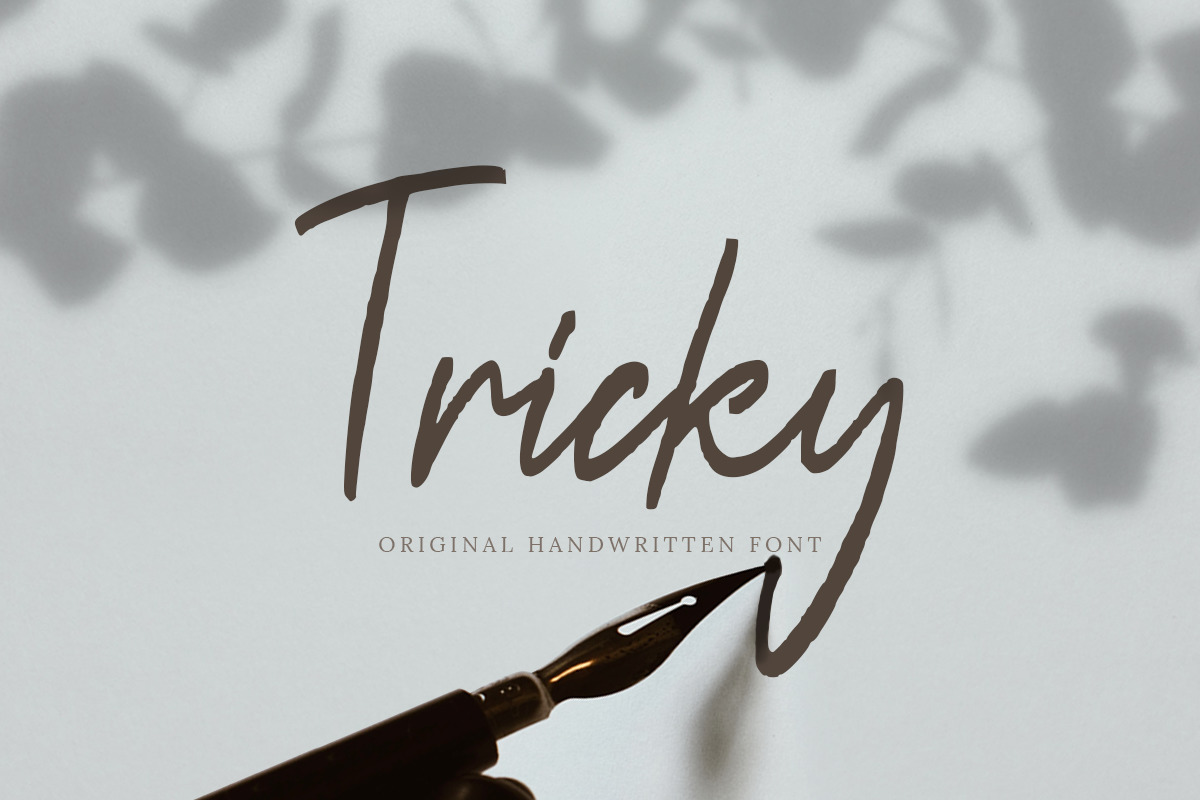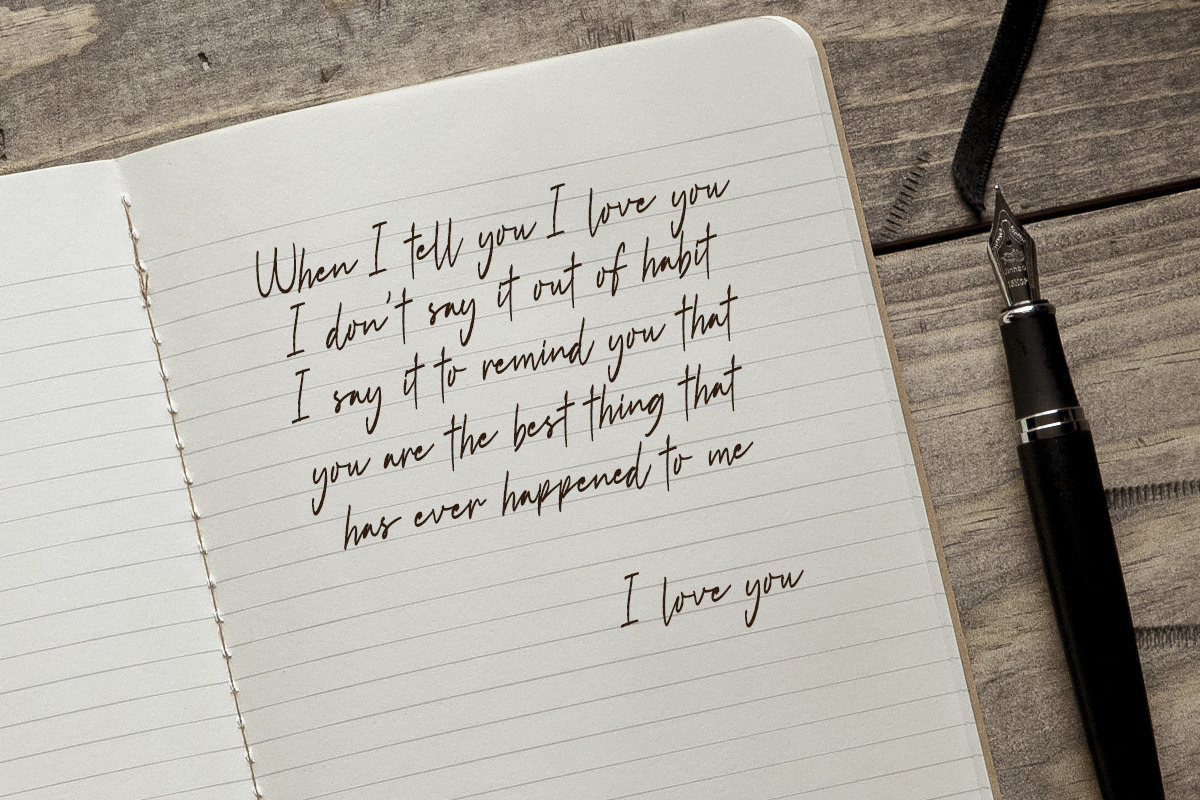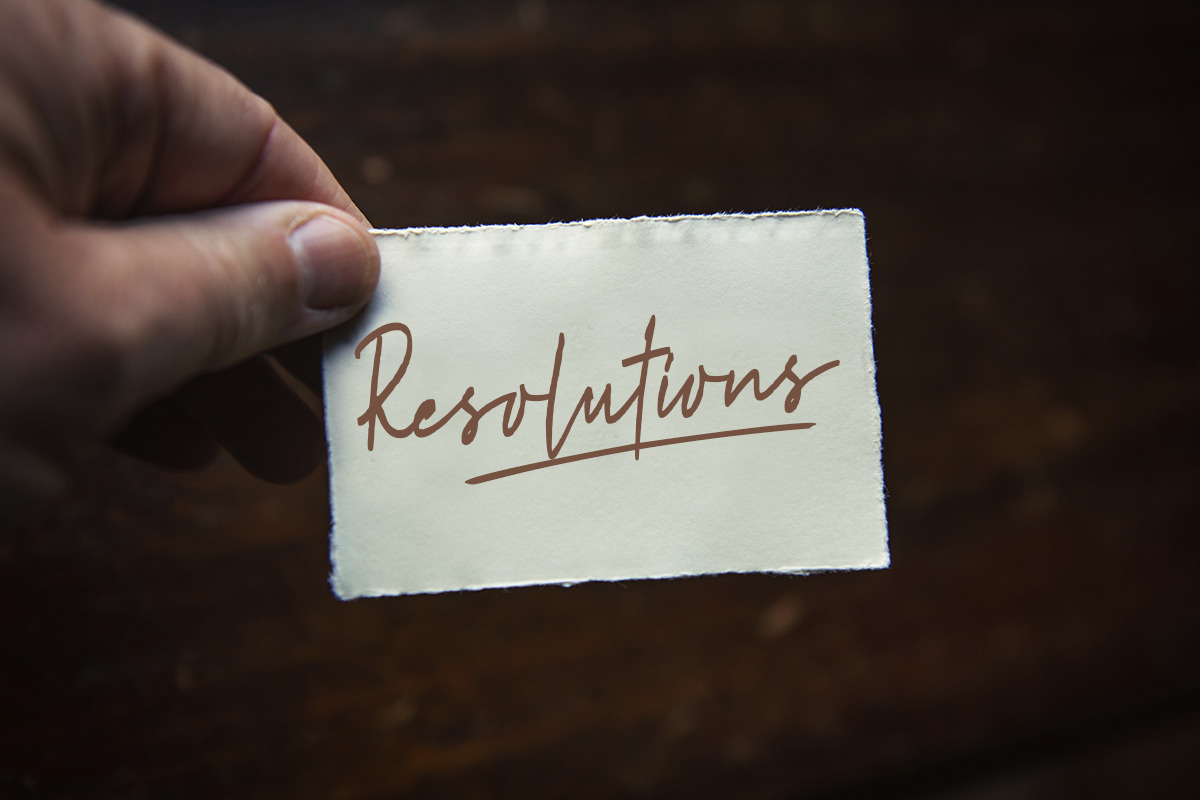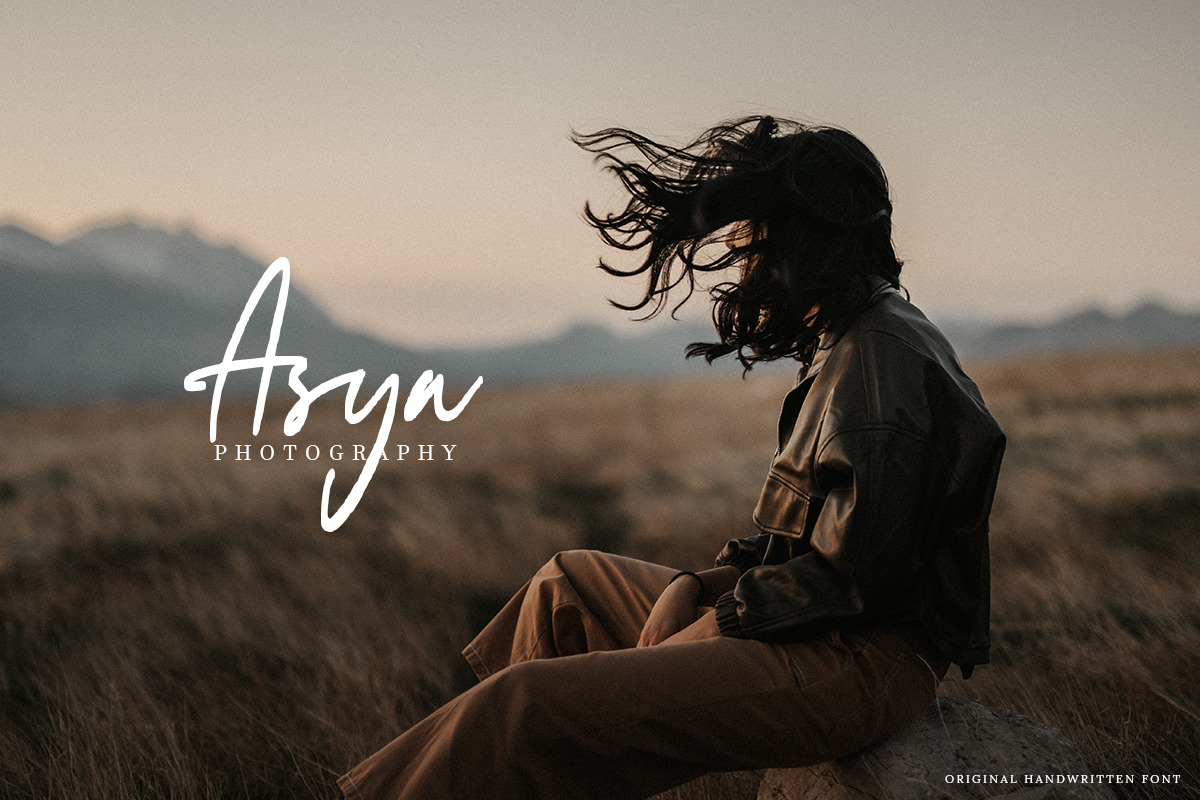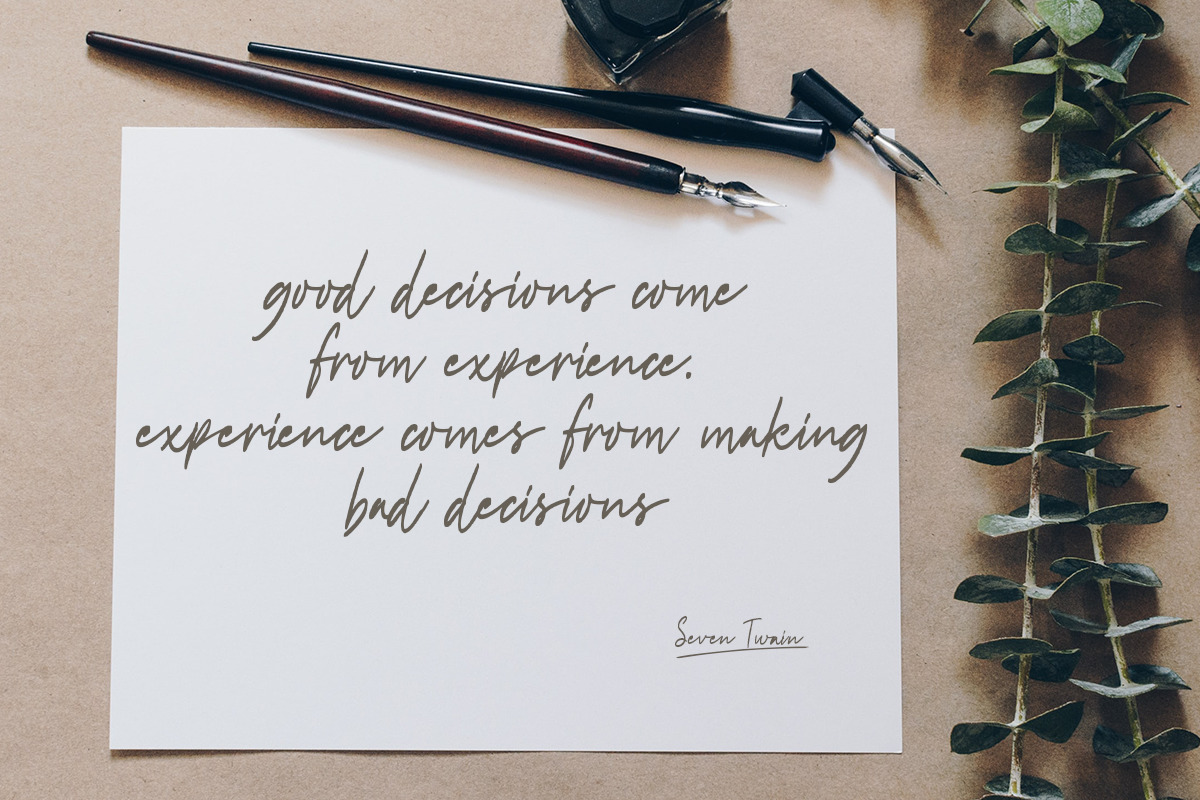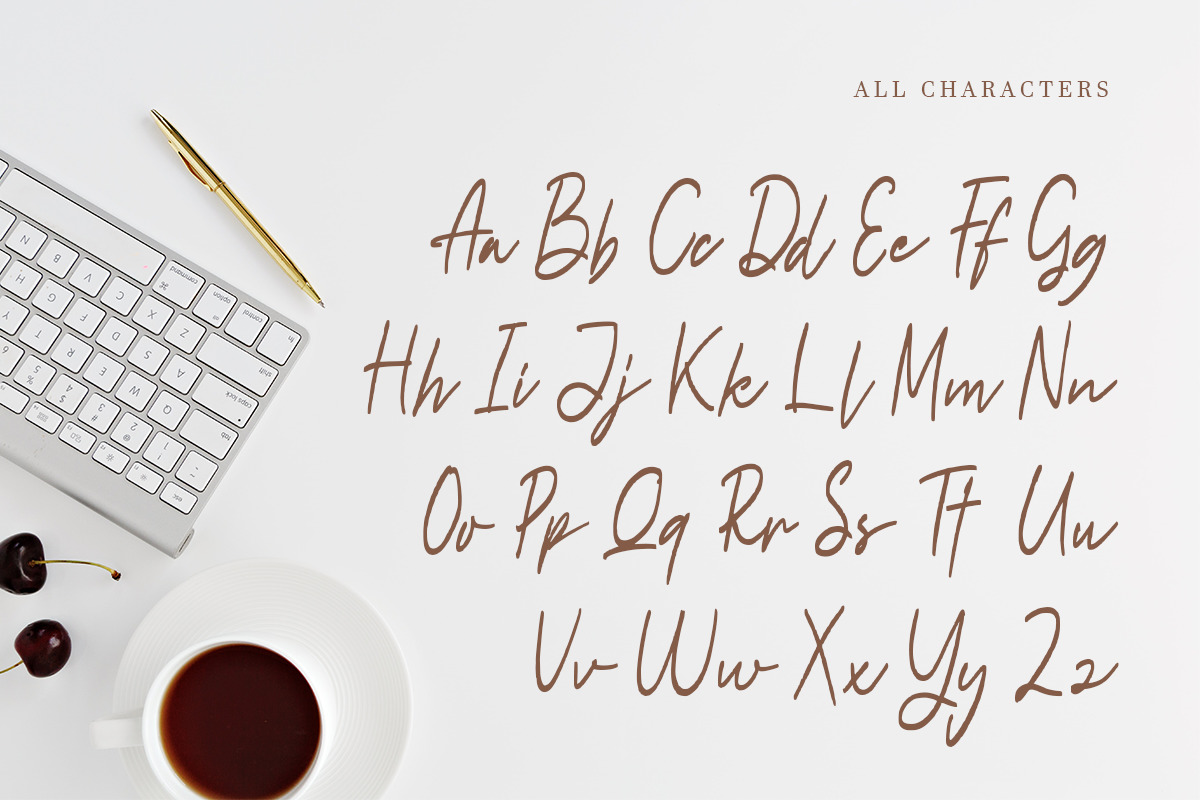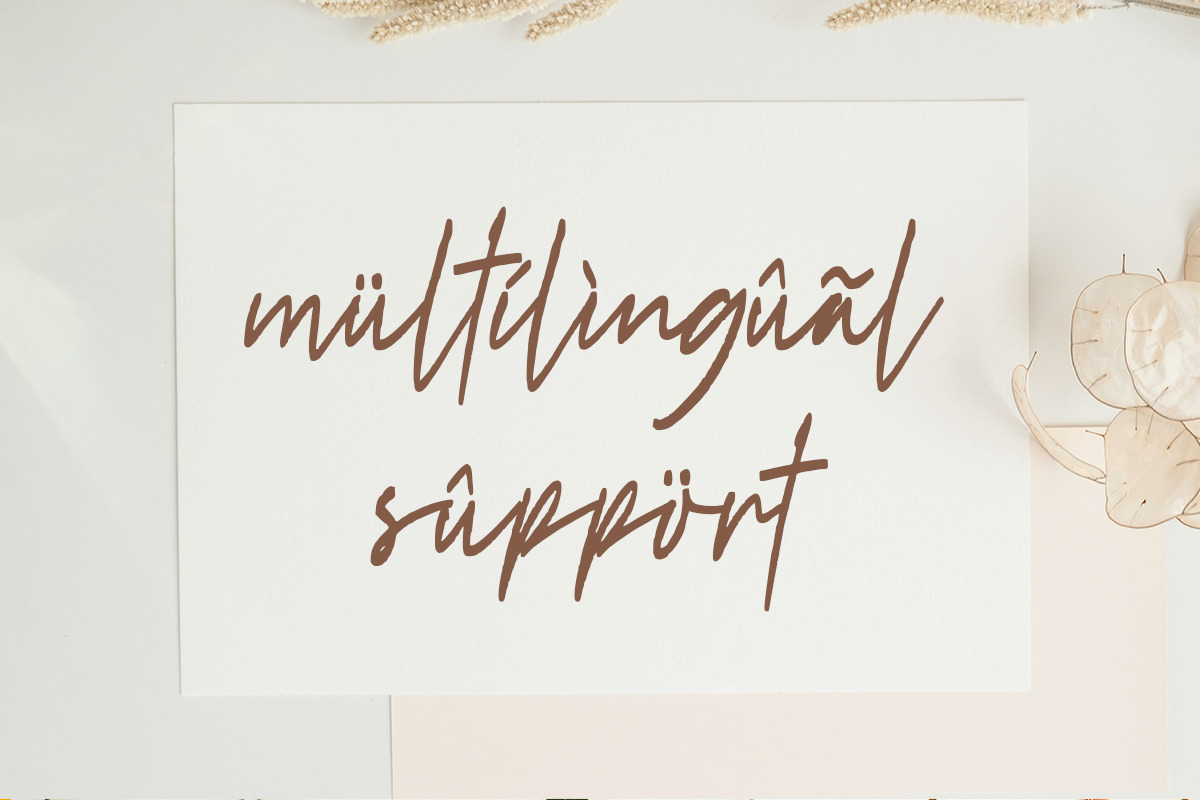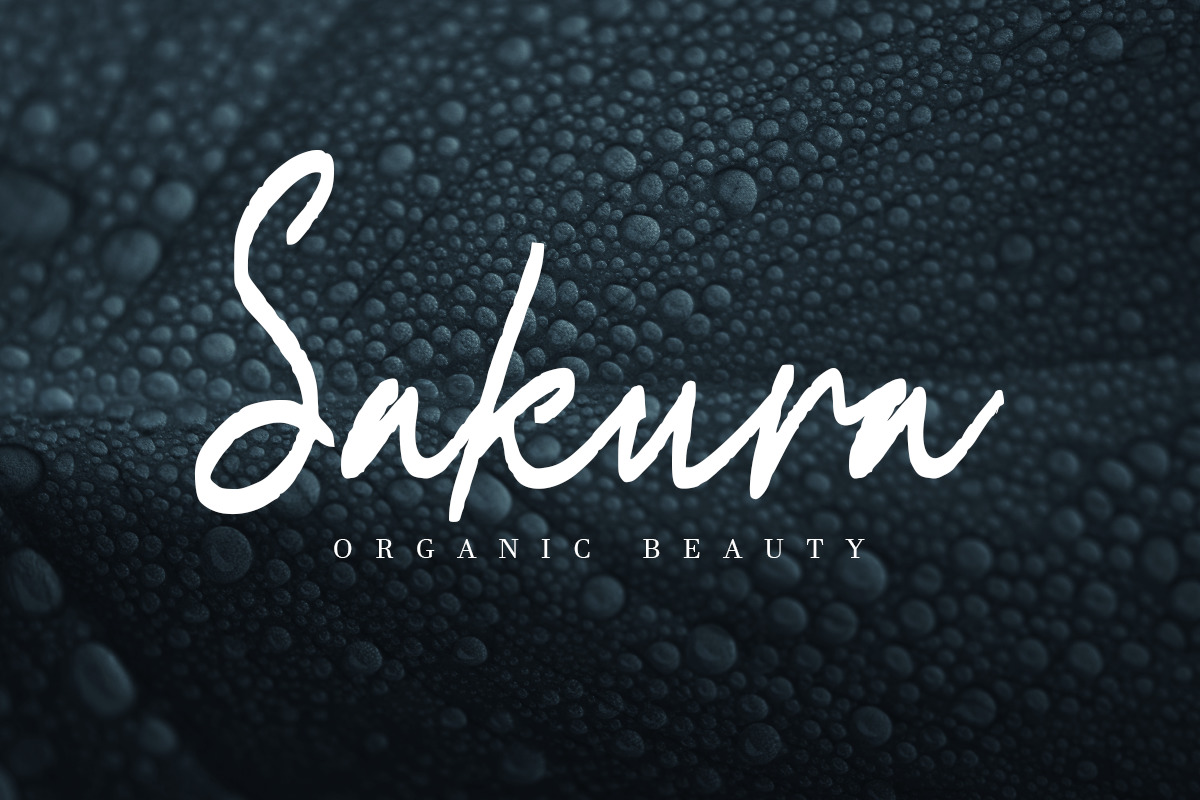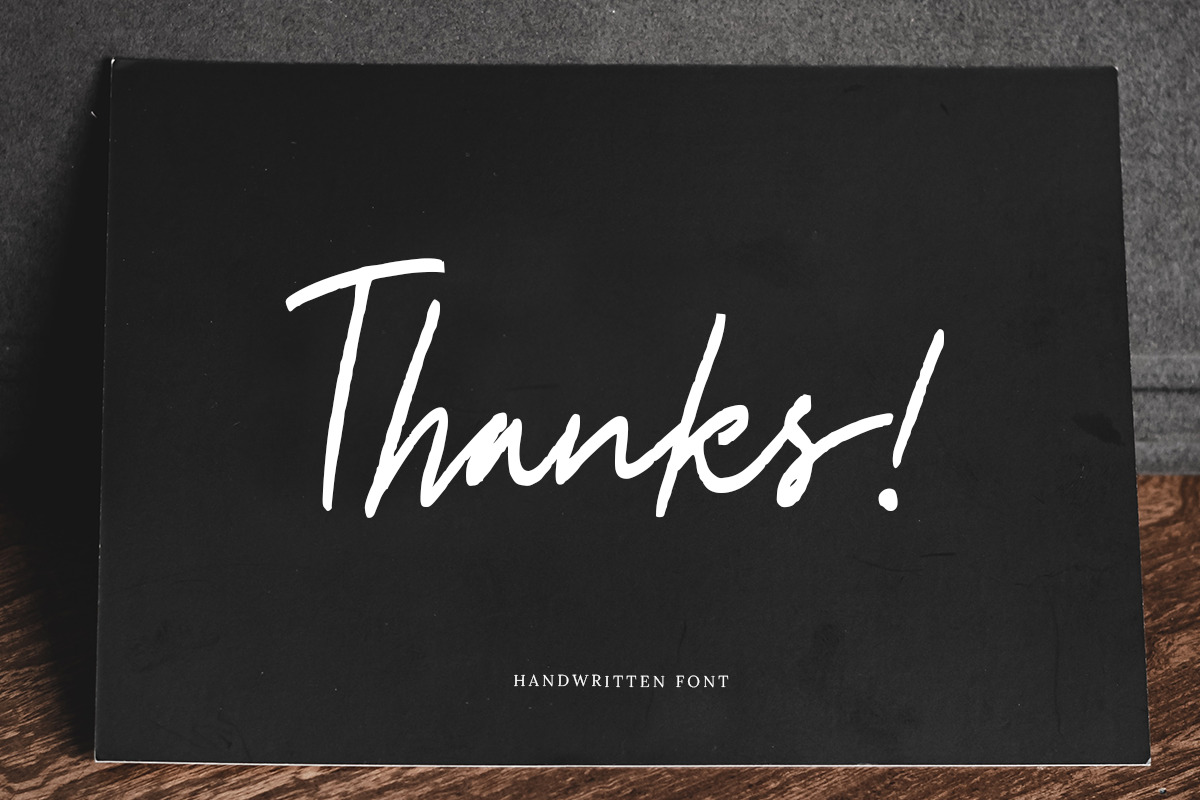
Tricky – Original Handwritten Font
Tricky is Original Handwritten Font
This unique typeface is perfect for designers who want to add a personal touch to their designs. With its natural and organic feel, Tricky is perfect for use in logos, branding, social media graphics, and more. Plus, its handwritten style adds a touch of authenticity and uniqueness that will help your designs stand out. Whether you’re designing for a creative project, a personal blog, or anything in between, Tricky is the perfect choice for adding a personal touch to your designs.
- Uppercase and lowercase letters
- Multilingual characters